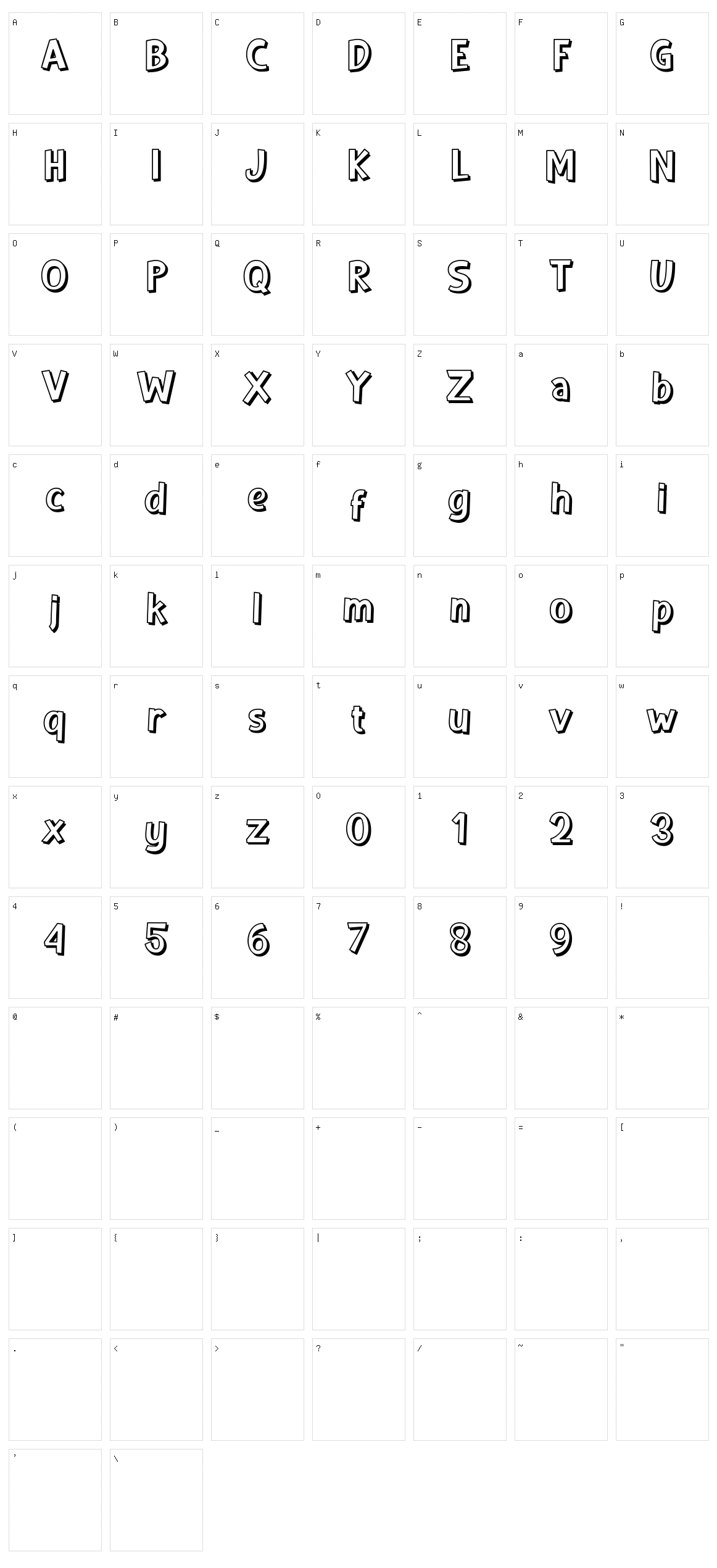
The free font Shadow is carefully designed by Toko Laris Djaja, showcasing a thoughtful balance of creativity and usability and falls under the Cartoon font style. When you download the ZIP file, it contains only 20.94 KB of font files, making it lightweight and quick to download. Please review the license details below to understand permitted usage and distribution rights. If license information is not available, we recommend using this font for personal projects only or contacting the author directly for commercial usage permissions.